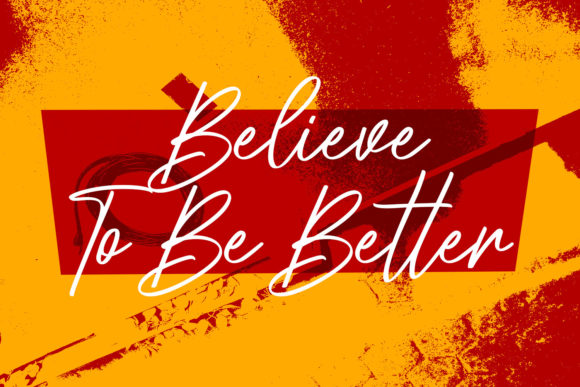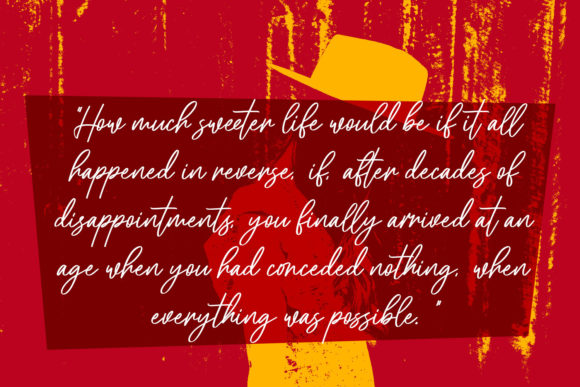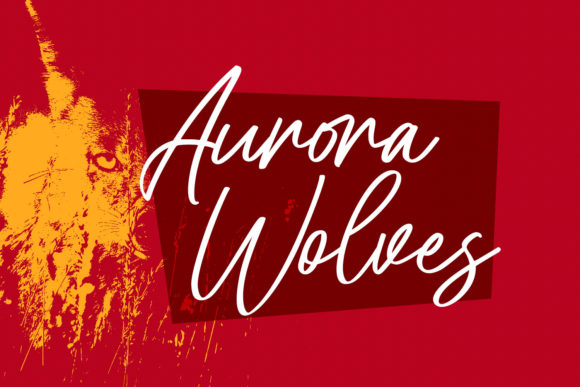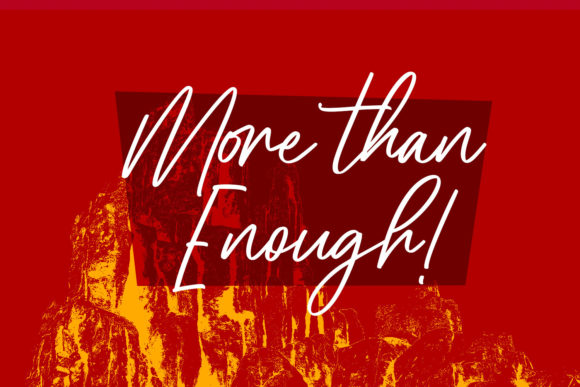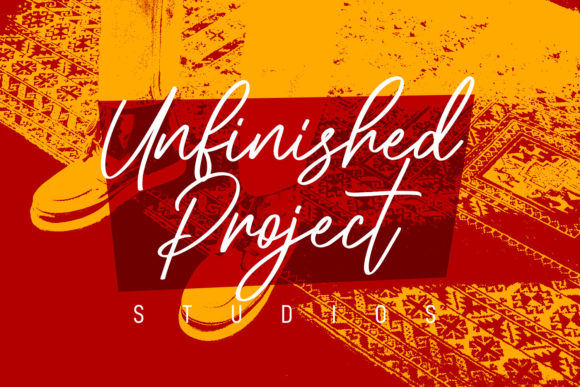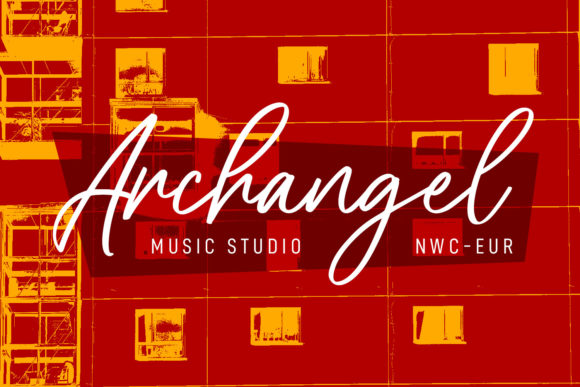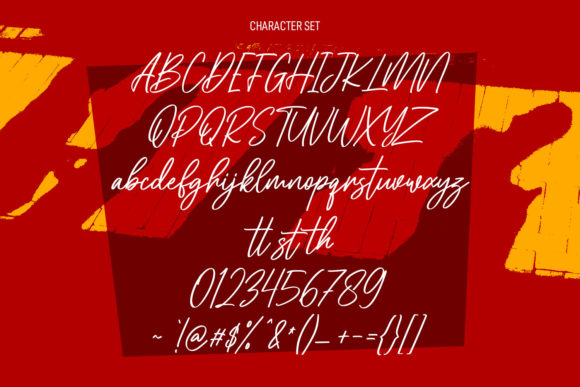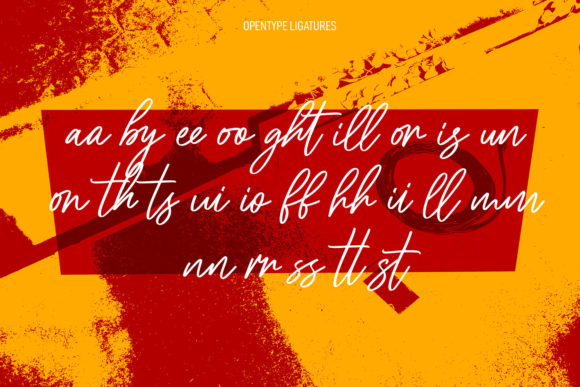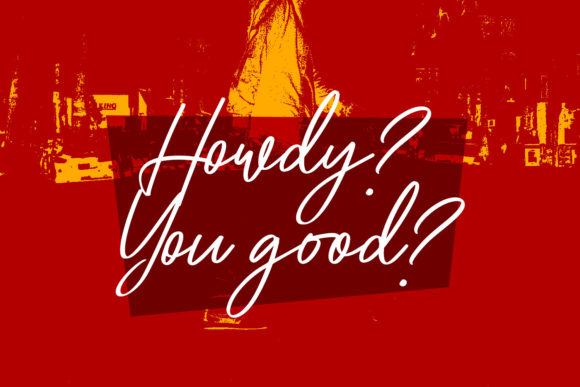
Contaros Script Font
About Contaros Script Font
Contaros Script is a relaxed and adaptable script font. Incredibly versatile, this font fits a wide pool of designs, elevating them to the highest levels. Add this font to your favorite creative ideas and notice how it makes them come alive!